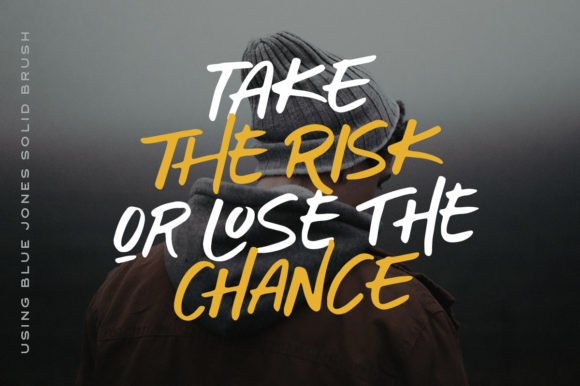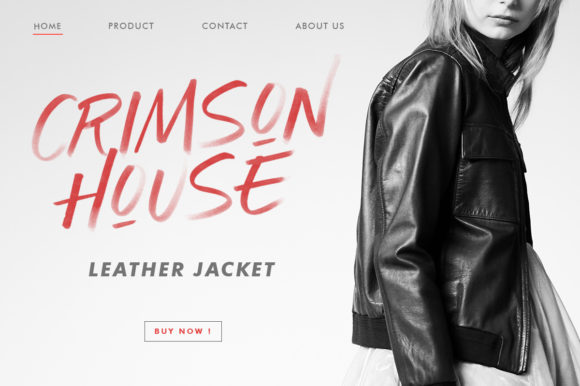
Blue Jones Font
Blue Jones is a unique display font, featuring an urban style. Add this font to your favorite creative ideas and notice how it makes them come alive!